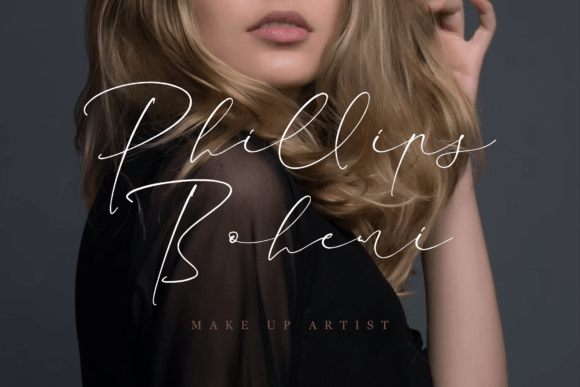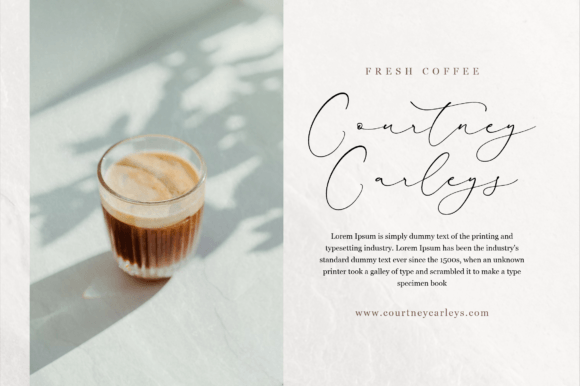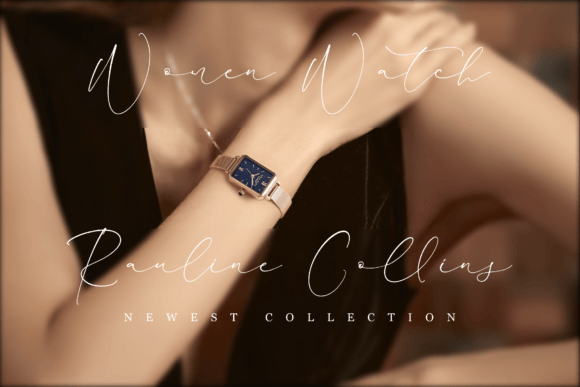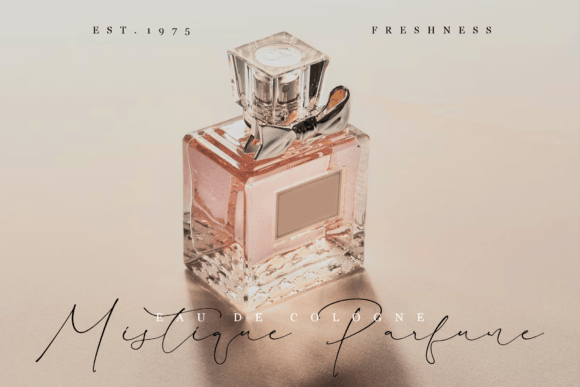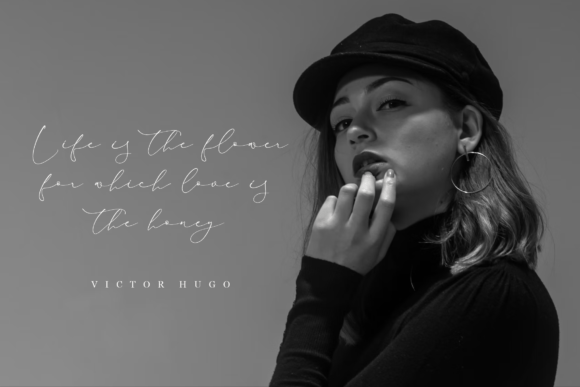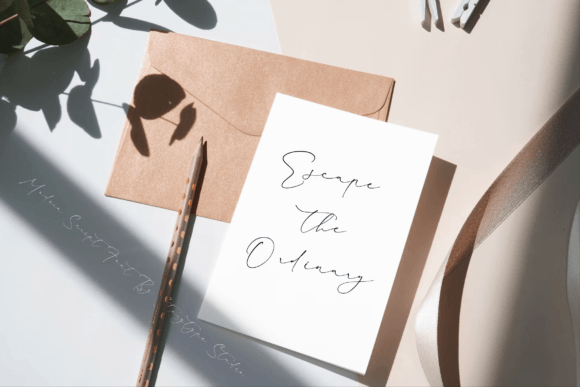
Introduction to Restillofa Font
As a designer, there’s nothing quite like the rush of discovering a new font that elevates your creative project to the next level. Whether you’re working on a branding campaign, crafting a wedding invitation, or designing a logo for a new business, the right font can make all the difference. And that’s exactly what the Restillofa Font offers – a beautiful, modern signature script font that will help you create stunning compositions that leave a lasting impression.
With its elegant rhythm and sophisticated style, the Restillofa Font is an invaluable resource for designers looking to add a touch of high quality and sophistication to their work. From web graphics to cards and invitations, this versatile font is perfect for a wide range of creative projects. And the best part? It’s available for free download, making it an accessible design resource for designers of all levels.
Key Features of Restillofa Font
- High-quality, hand-drawn design suitable for creative projects requiring a unique touch.
- Perfect for designers and artists working on creative projects, including logos, branding materials, and digital art.
Honest Review: Restillofa Font
I recently had the chance to work with the Restillofa Font, a popular design resource for creatives. I was excited to see how it would perform in my next project.
- High quality glyphs and unique letterforms make it perfect for adding a touch of elegance to any design.
- The transparent background feature allows for seamless integration with other design elements.
- Restillofa Font is highly versatile and suitable for a wide range of creative projects.
- ⚠️ Limited language support, which may not be ideal for multilingual projects.
- ⚠️ Not all fonts are available in the same weight, which can make it difficult to achieve a consistent look.
Overall, I was impressed with the Restillofa Font’s potential. While it may not be perfect, it’s a great addition to any designer’s toolkit. With a little creativity, you can achieve some amazing results with this high-quality font.
Restillofa Font is a high-quality design resource perfect for creative projects that require a unique and elegant touch. With its transparent background, this font is ideal for designers who want to add a touch of sophistication to their designs.
Tips for Getting the Most Out of Restillofa Font
Use Restillofa Font in conjunction with other design elements to create a cohesive and sophisticated look. Experiment with different font sizes and styles to add depth and interest to your design.
Common Use Cases for Restillofa Font
Restillofa Font is perfect for a variety of creative projects, including wedding invitations, business cards, and branding materials. Its elegant and sophisticated design makes it a great choice for any project that requires a touch of class.